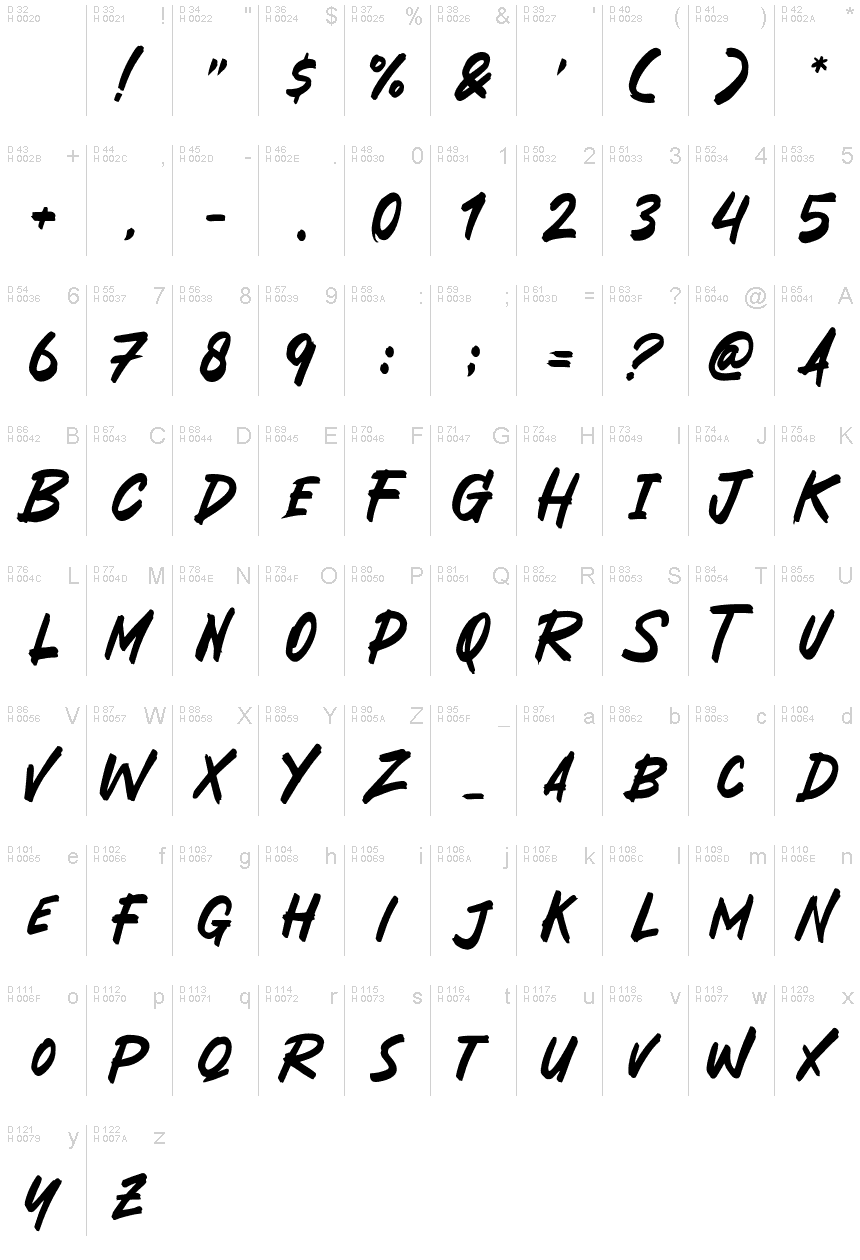
Neodex
Neodex, the latest creation from font designer Khurasan, is a bold and expressive brush font that adds a touch of creativity to any project. With its semi-bold weight, Neodex commands attention while still maintaining a playful and approachable vibe. This versatile typeface is perfect for anything from eye-catching headlines to fun social media graphics. Whether you're designing a trendy fashion blog or creating an edgy album cover, Neodex has got you covered. So why settle for boring fonts when you can make your work pop with Neodex?